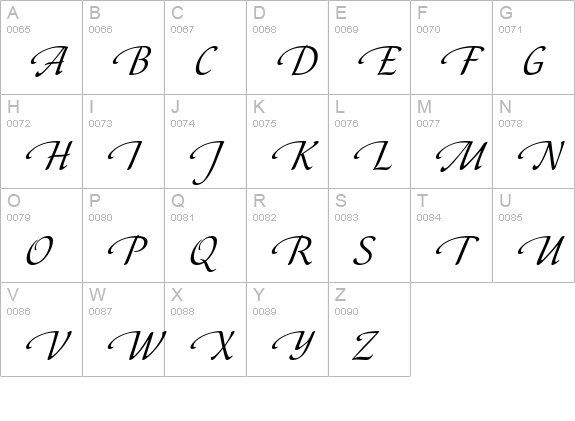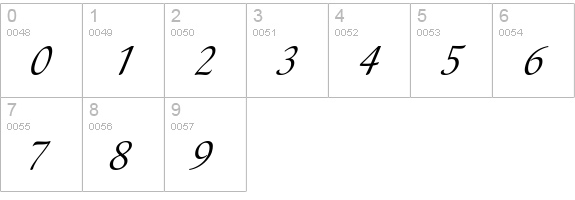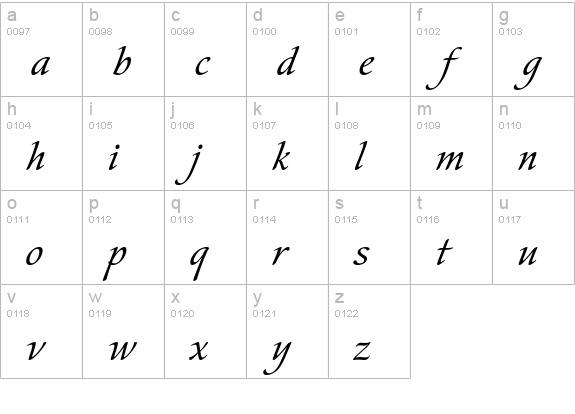
CometaCTT is a stunning and versatile font that combines modern elegance with a touch of sophistication. Its clean lines and stylish curves make it perfect for a wide range of design projects, from branding to editorial content. With its unique character and timeless appeal, CometaCTT is sure to make a bold statement wherever it is used. The best part? CometaCTT is completely free to download at FontsMarket.com. This means that you can access this beautiful font without any cost, making it a valuable addition to your font library. Whether you're a graphic designer, a content creator, or simply someone who appreciates good typography, CometaCTT is a must-have font that will elevate your projects to new heights. Download it today and unleash your creativity with this exceptional typeface.